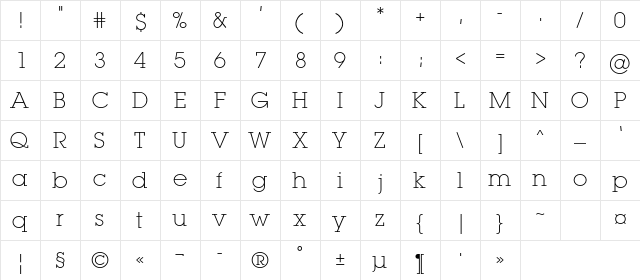
LugaExtraLightC Regular Font Preview
LugaExtraLightC Regular
LugaExtraLightC Regular Font Details
Design Context for LugaExtraLightC Typeface
LugaExtraLightC is a composed and adaptable typeface that performs quietly and consistently across a wide range of design contexts. Its slender proportions lend an understated elegance to any composition.